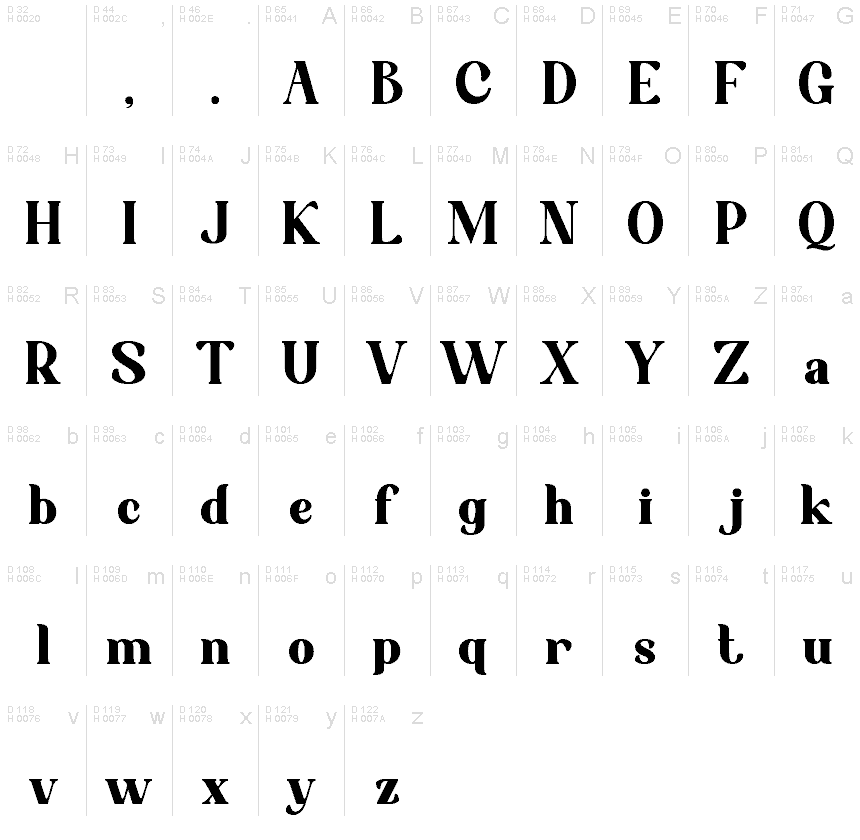
Croist Regular
Croist font is Achmad Yani's flamboyant and full of character serif font that cannot go unnoticed. Its letterforms are thick, prominent in size and structure, and are guaranteed to make an impactful statement with any text. Inspired by vintage lettering styles, Croist comes across as authoritative which adds strength to its presence in print or digital formats.
Types of projects that could use Croist’s versatility are the design of headlines, posters, book covers, event flyers, labeling projects, food menus, movie covers, greeting cards enhancements… The free serif font mixes well with modern elements appearing as interestingly eye-catching branding for firms and products such as a logo – especially minimal type ones.